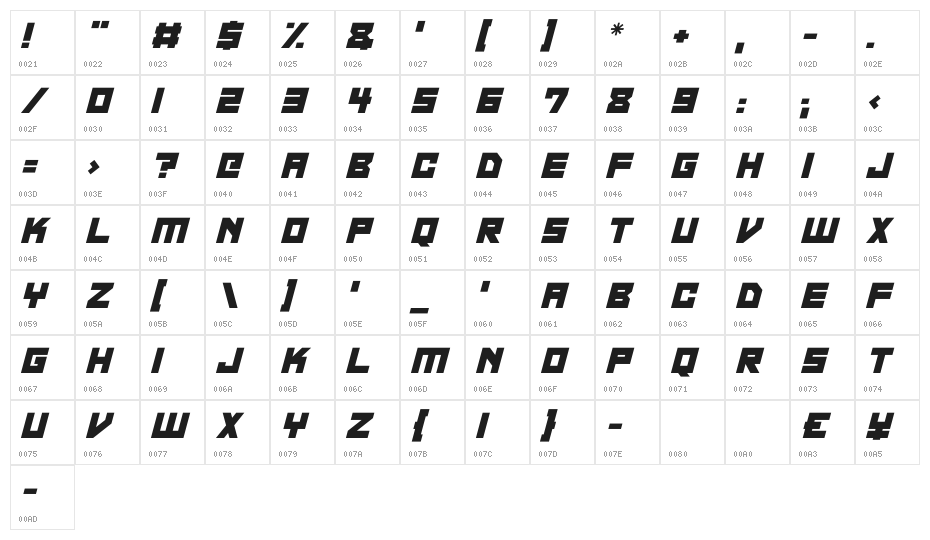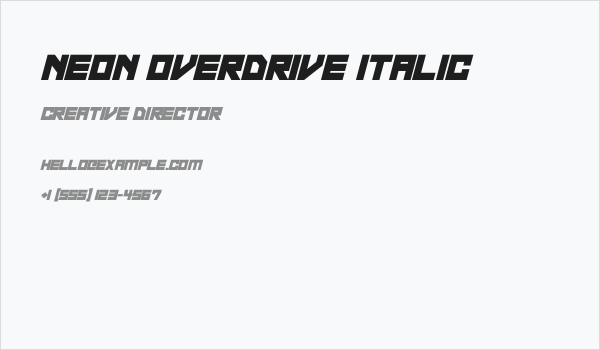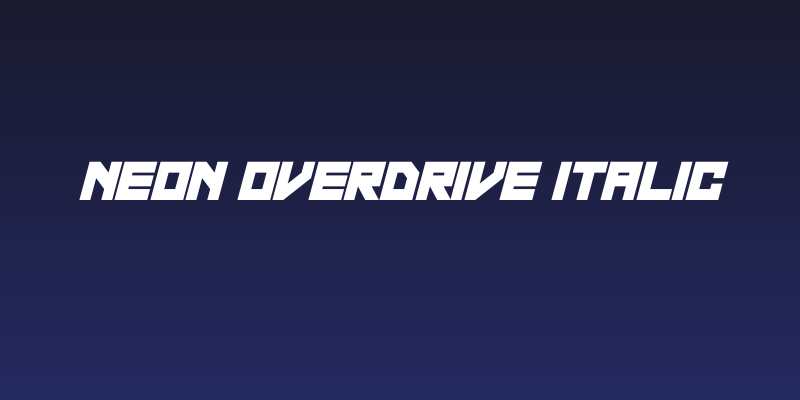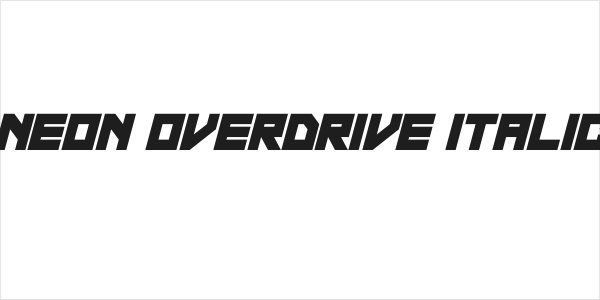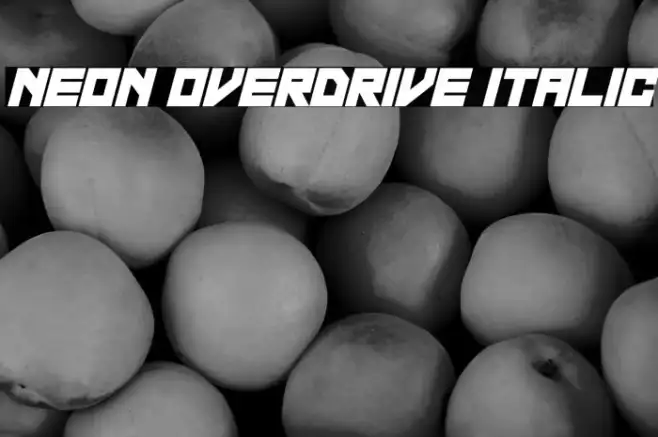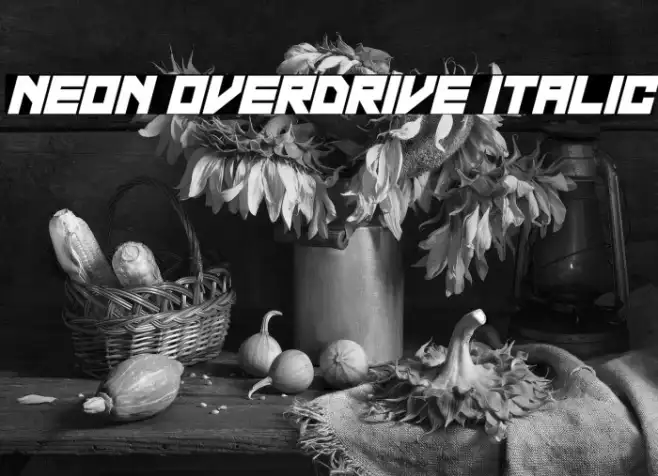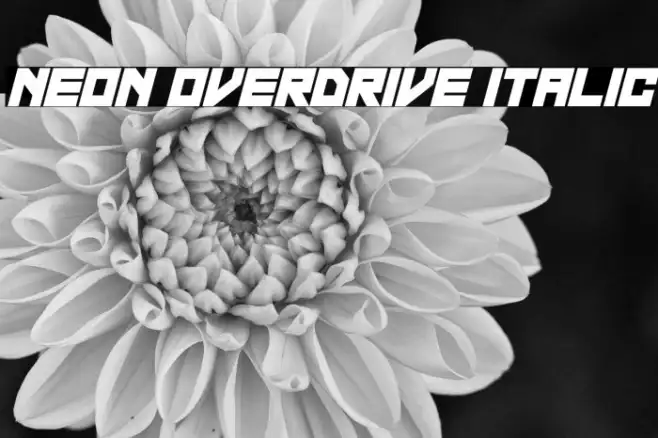
Neon Overdrive Italic Font
Neon Overdrive Italic Description
This font features a bold, angular design with a futuristic and dynamic appearance. The characters are sharply cut with a distinct slant, giving them a sense of motion and energy. The uppercase and lowercase letters maintain a consistent style, with wide, blocky forms and a strong geometric influence. The numbers and special characters follow the same aesthetic, ensuring uniformity across all glyphs. This font's boldness and unique style make it stand out, ideal for projects that require a modern and edgy look.
| Proposed Projects | Ideal for sci-fi themed designs, video game titles, tech branding, and dynamic posters. |